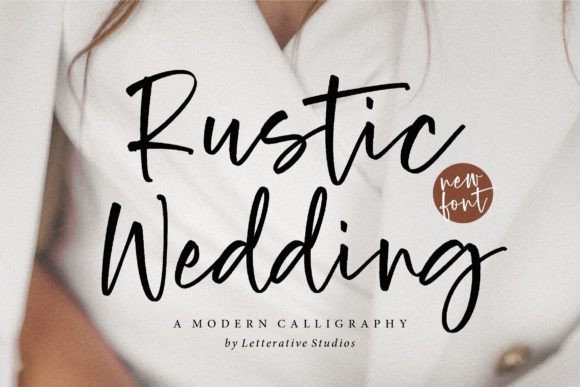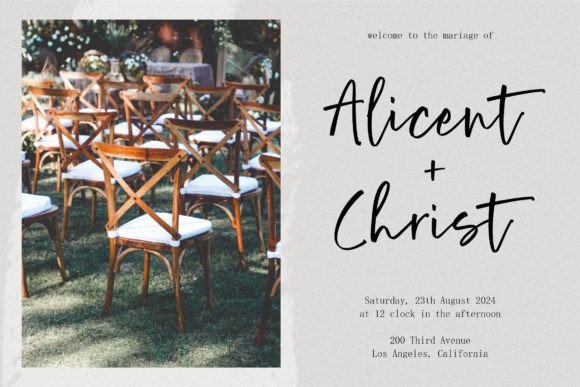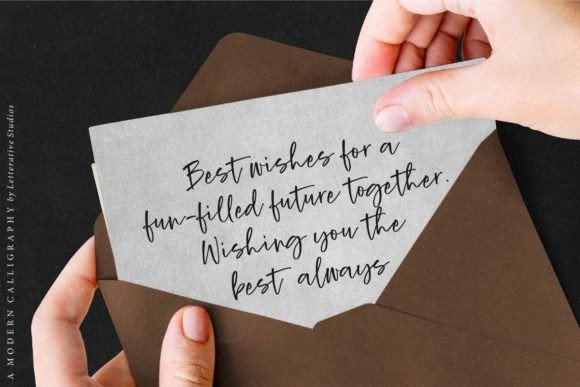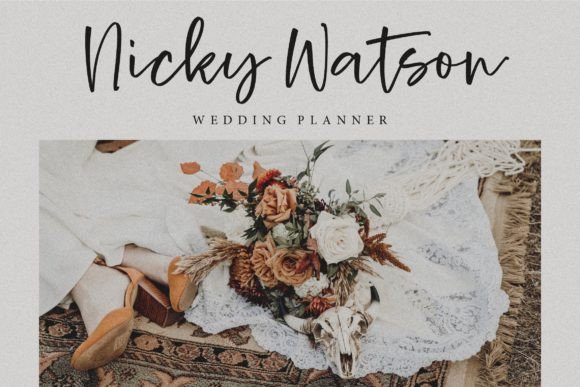
Rustic Wedding Font
About the Rustic Wedding Font
We are excited to introduce Rustic Wedding Font, a must-have typeface for any serious designer. Rustic Wedding is a Modern Calligraphy Font.
Whether you’re using it for crafts, digital design, presentations, or making greeting cards, this font has the potential to become your favorite go-to font, no matter the occasion!
Rustic Wedding’s elegant yet slightly informal style makes it ideal for wedding invitations, stationery, and branding projects needing a touch of rustic charm. It works well in headlines, short paragraphs, and logos, adding a sophisticated yet approachable feel. Avoid using it for lengthy body text or UI elements where high readability is paramount; its calligraphic nature can hinder legibility in smaller sizes or continuous blocks of text.
Pairings that complement Rustic Wedding include clean sans-serif fonts like Lato or Montserrat for a modern contrast, or a classic serif like Garamond or Playfair Display for a more traditional feel. A simple geometric sans-serif could also provide a strong, balanced visual counterpoint.
The font exudes a personality that is both romantic and dependable, conveying a sense of refined simplicity. It’s best suited for brands and projects that value authenticity and understated elegance.
Rustic Wedding Font Usage Examples
Rustic Wedding Font Example